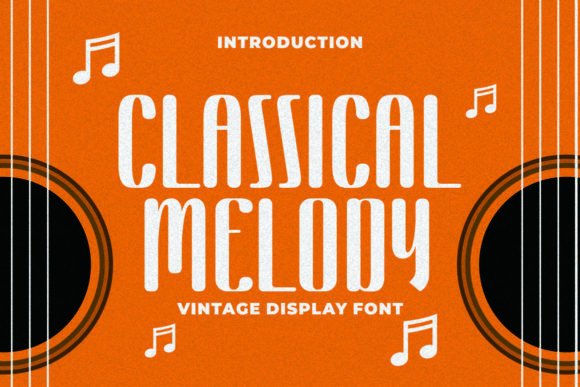
**Classical Melody: The Vintage Melody for Your Modern Designs**
Are you ready to embark on a typographic adventure where vintage charm meets modern artistry? Introducing Classical Melody, the display font that will transform your designs into captivating masterpieces.
Classical Melody is not just another font; it's a symphony of elegance and nostalgia. Each letterform is meticulously crafted with a vintage flair, evoking the charm of bygone eras while maintaining a contemporary edge. Its timeless appeal makes it the perfect choice for designers seeking a touch of history in their creations.
Whether you're crafting posters that demand attention, enchanting invitations, or social media posts that stand out, Classical Melody will elevate your designs to new heights. Its versatility knows no bounds, making it the go-to font for a myriad of projects.
**Immerse Yourself in the World of Classical Melody**
With Classical Melody, you'll have access to a complete repertoire of glyphs and ligatures, meticulously encoded to grant you limitless creative possibilities. Unleash your imagination and weave words into intricate compositions that will leave a lasting impression.
But Classical Melody isn't just about aesthetics; it's about evoking emotions and connecting with your audience. Its vintage charm has an uncanny ability to transport viewers to a bygone era, creating a sense of nostalgia and wonder. Whether you're designing for a classic brand or simply want to add a touch of timeless elegance to your work, Classical Melody will effortlessly elevate your creations.
**Unlock the Potential of Your Creativity**
With its endless versatility and undeniable charm, Classical Melody is the perfect choice for designers seeking a font that will elevate their work and captivate their audience. Join the symphony of creativity and experience the magic of Classical Melody today!